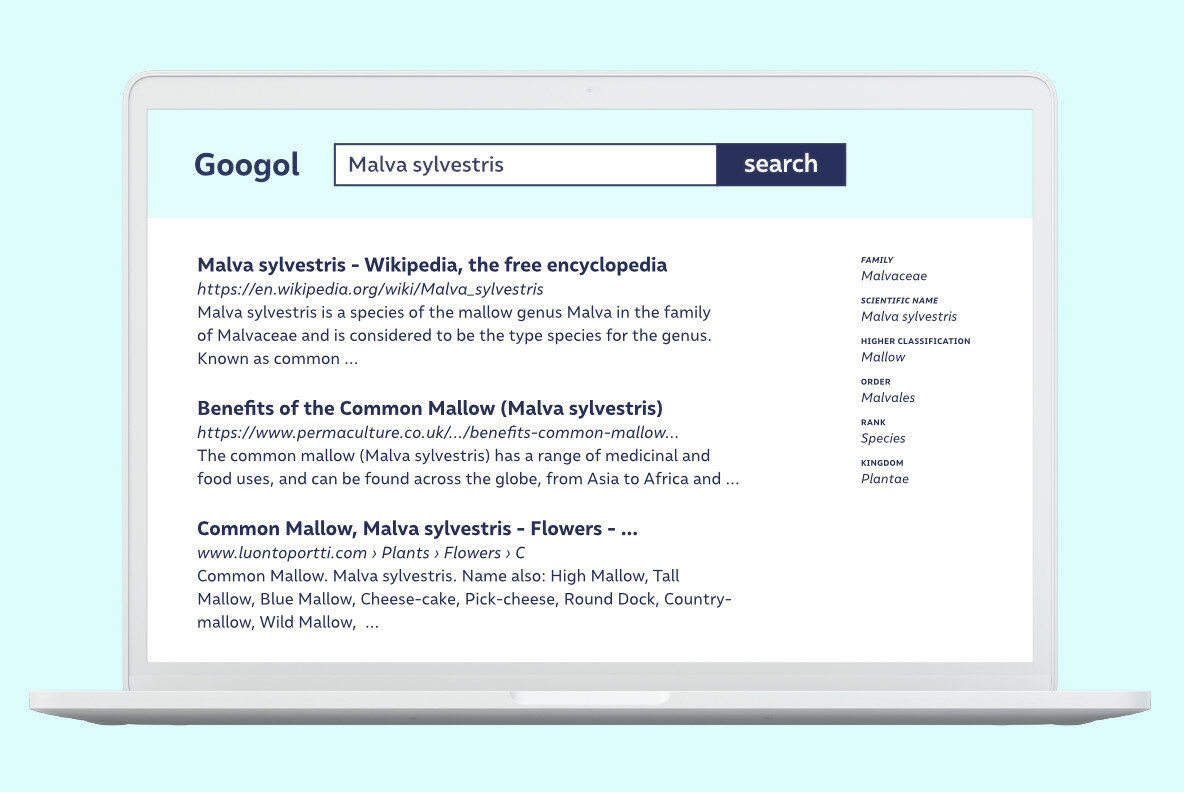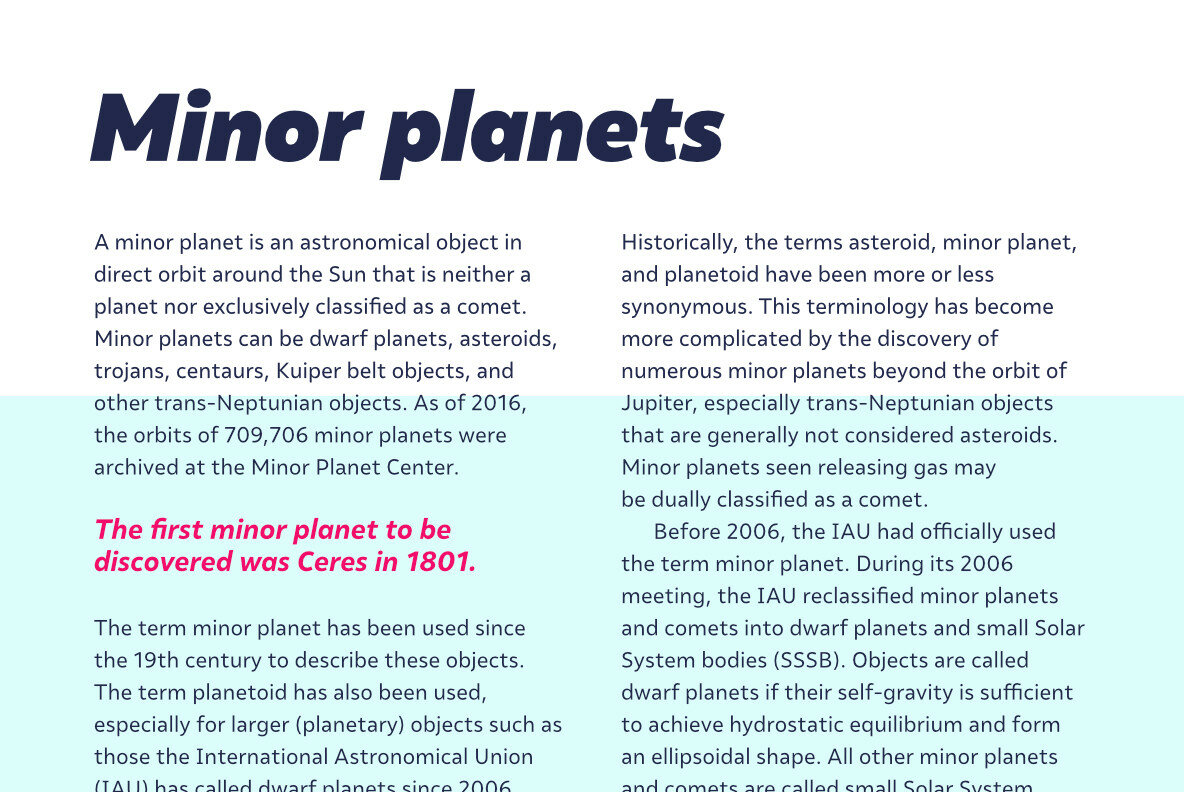
Malva Font
* Selected for Tipos Latinos 8.
* Selected for the 12th Biennial of Brazilian Graphic Design.
Malva was designed to perform as a branding element, providing a clean look for visual identities and publications. It brings a touch of friendliness to the communication without compromising the professional look every brand strives for.
Legibility was one of the top concerns during the development of Malva. We took special care to differentiate the naturally ambiguous characters I, i, l and 1. Besides that, carefully proportioned letterforms make Malva a very legible text typeface. The lighter and bolder weights look great at large sizes, such as posters, ads and headlines. On the other hand, the whole family works very well on the web and on mobile devices.
In version 2.0, we added variable fonts, alternate glyphs, tabular figures, superior/inferior figures and arbitrary fractions. All this to make Malva even more versatile.